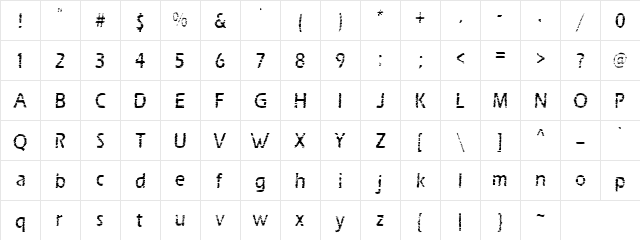
Scratch Board Regular
Design Context for Scratch Board
Scratch Board is a composed and adaptable typeface that performs quietly and consistently across a wide range of design contexts.
Pro Tip: Use Scratch Board in both headline and body roles to test its range before committing to a single application.